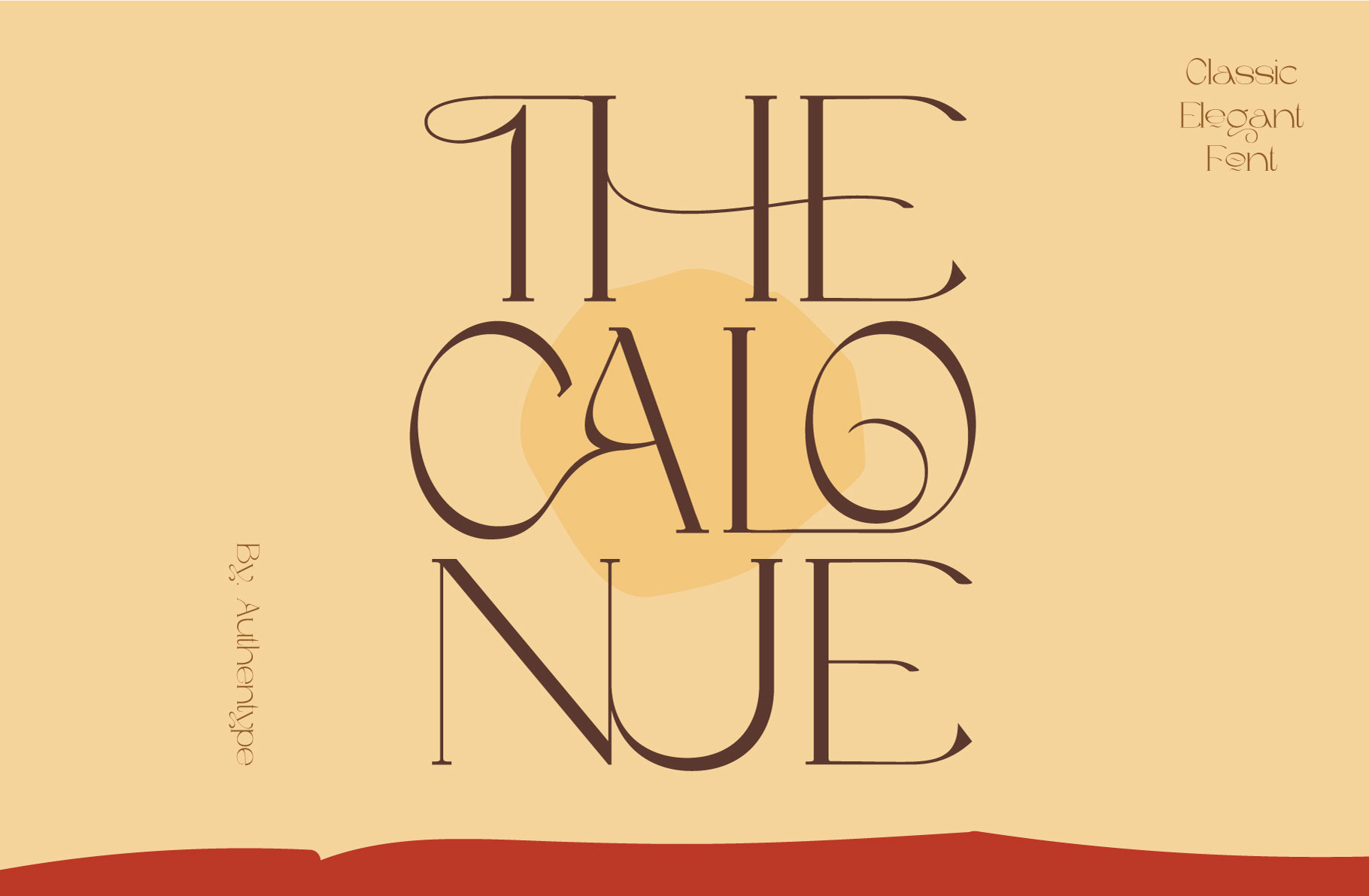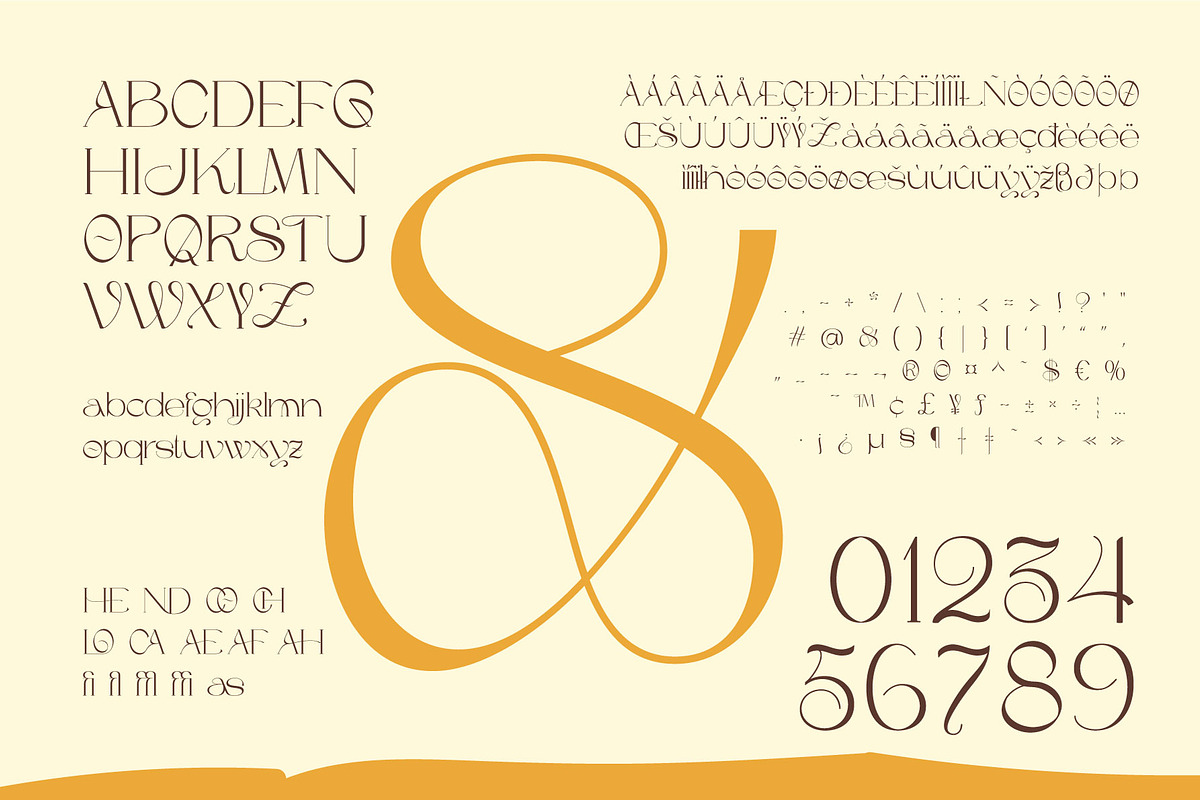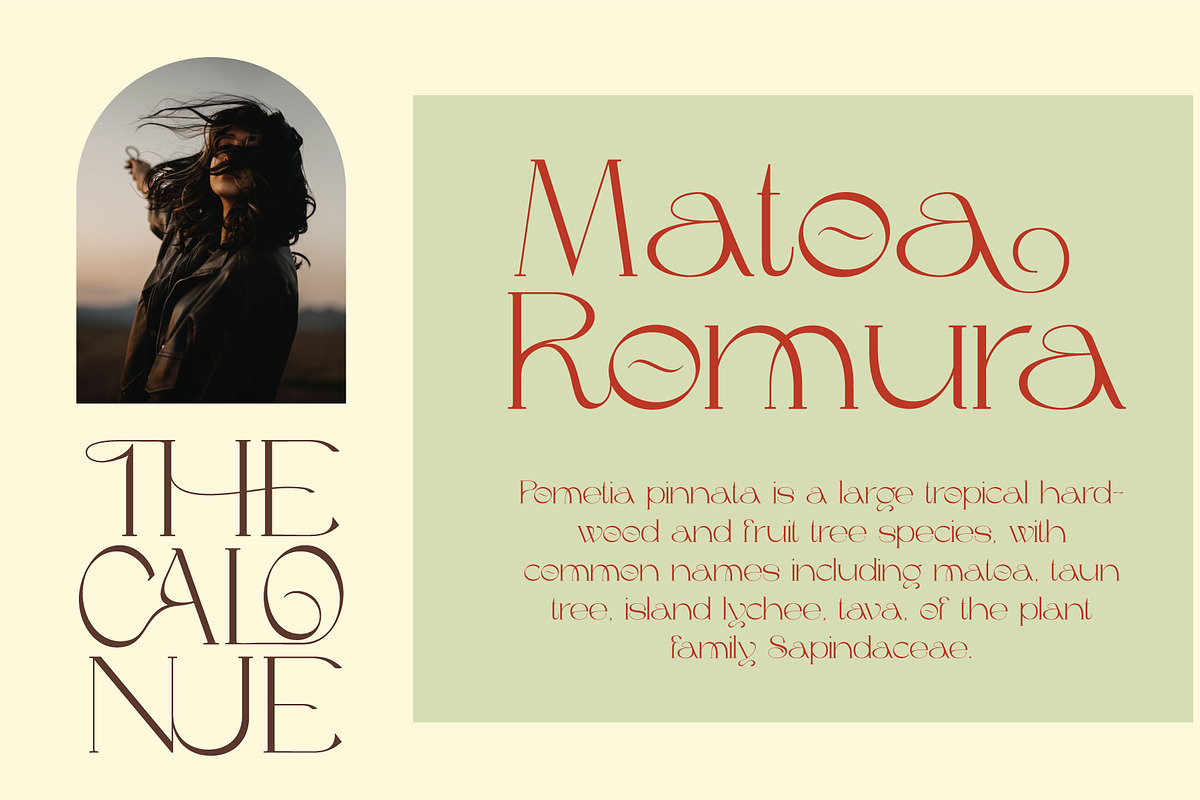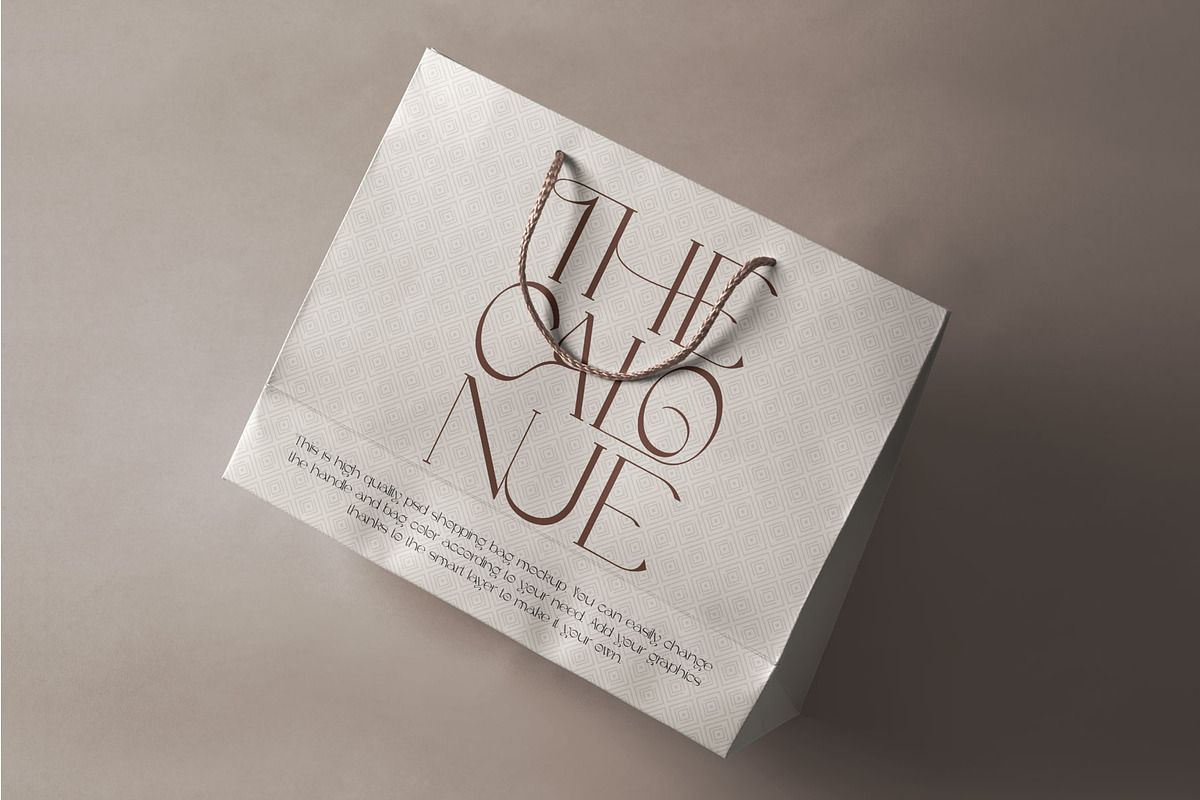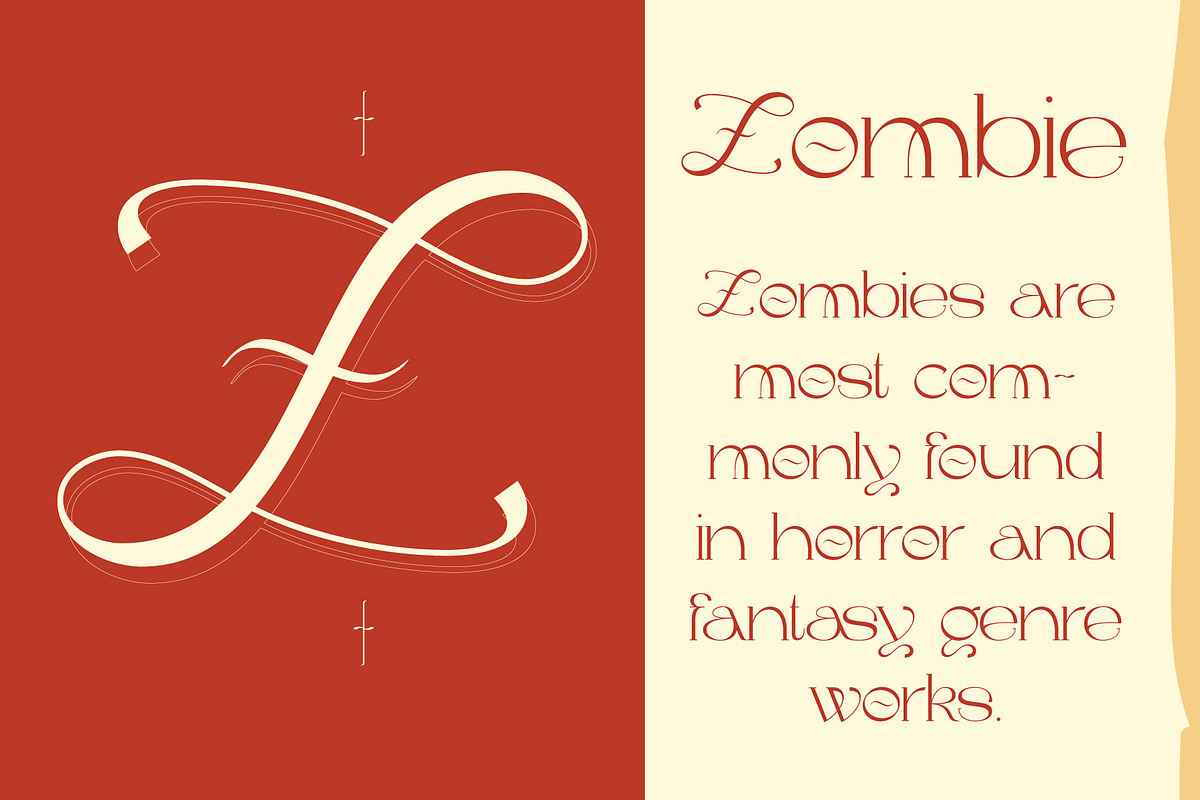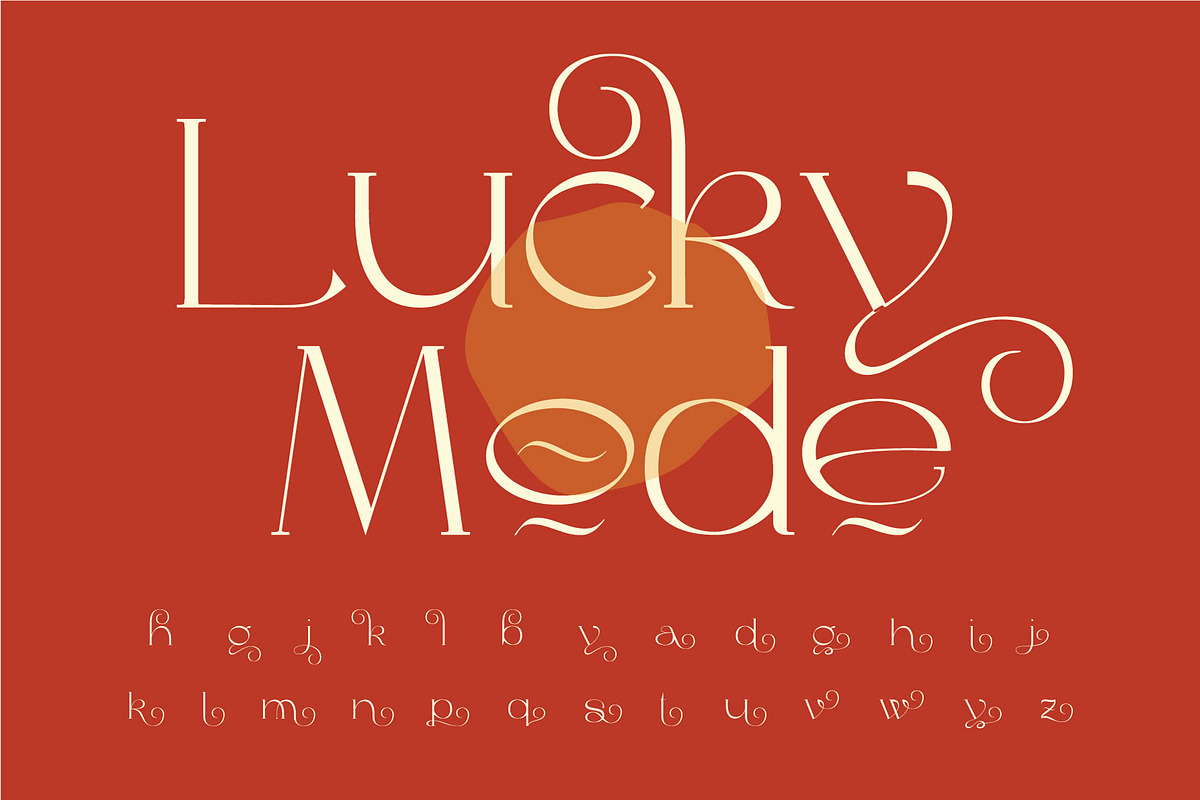
The Calonue Classic & Elegant Font
The Calonue Classic & Elegant Font created by Authen Type. This font features a classic and elegant style, perfect for:
Classic and elegant style designs are very beautiful to use in branding designs for beauty and feminine products. It might also be interesting that The Calonue is placed for designs, brochures, logos and invitations with a neat and varied font concept.